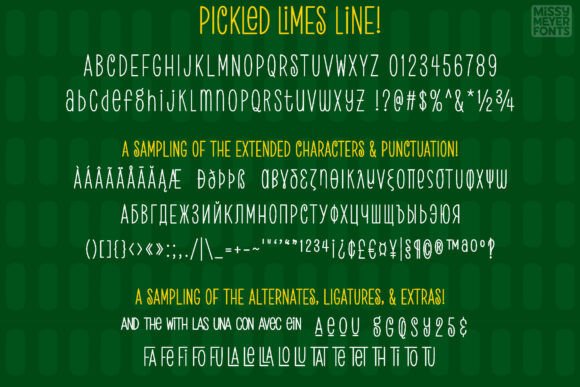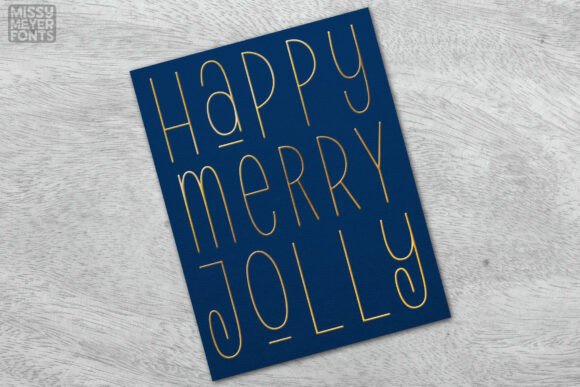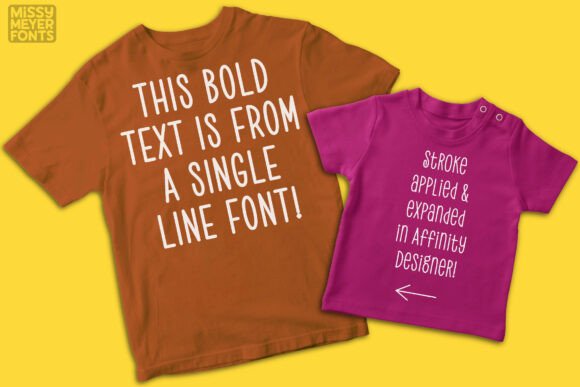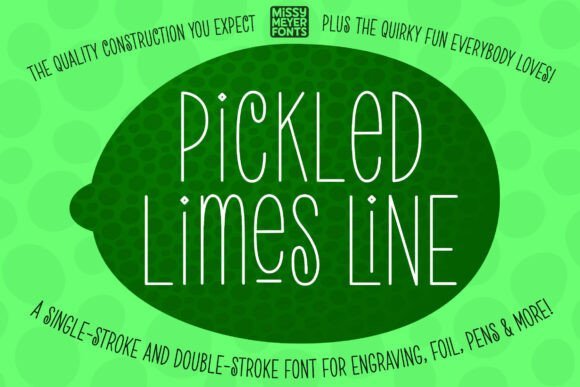
Introduction to Pickled Limes Line Font
Pickled Limes Line is a playful single-line font derived from the original Pickled Limes outline typeface.
Featuring a tall, narrow handwritten style, it adds a fun and quirky touch to a wide range of creative projectsβ€”perfect for greeting cards, personalized gifts, jewelry engraving, cutting boards, and more Designed specifically for drawing-based tools, this font is not intended for traditional printing or word processing.